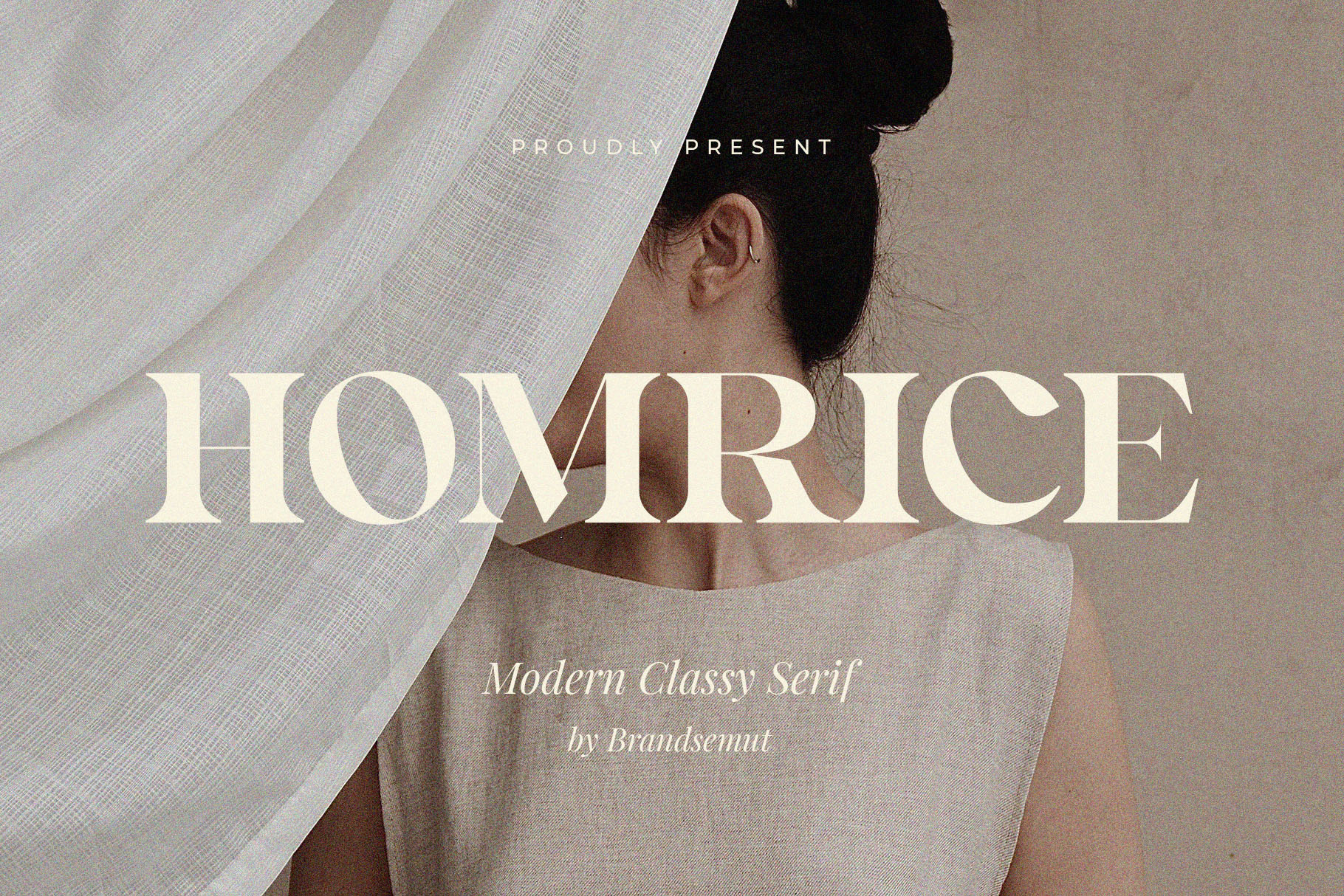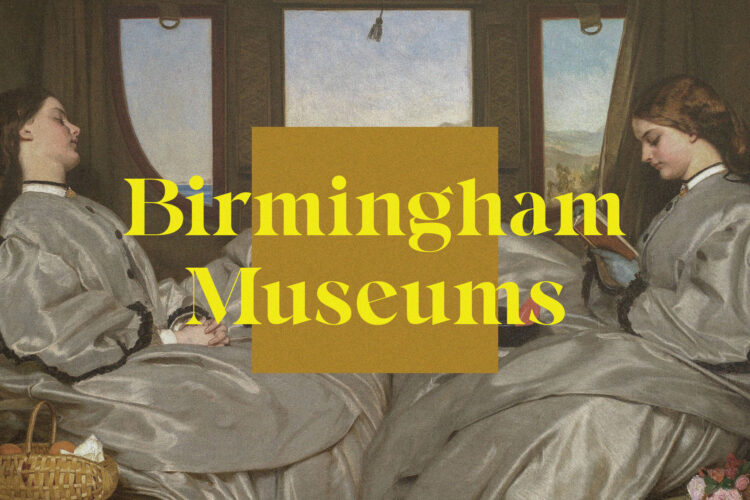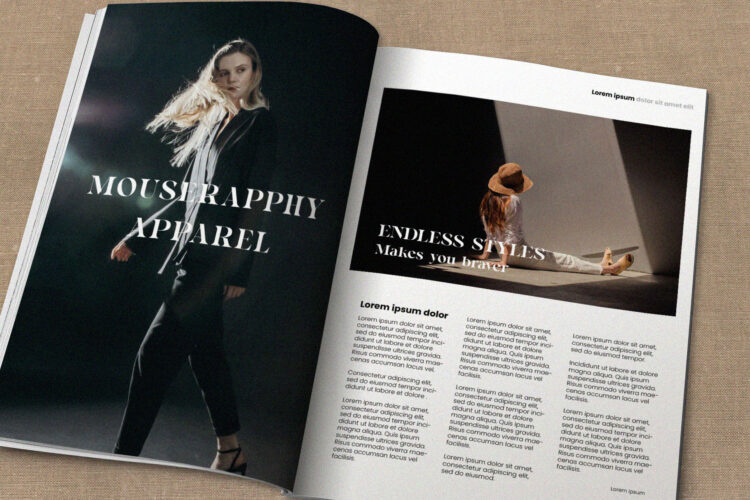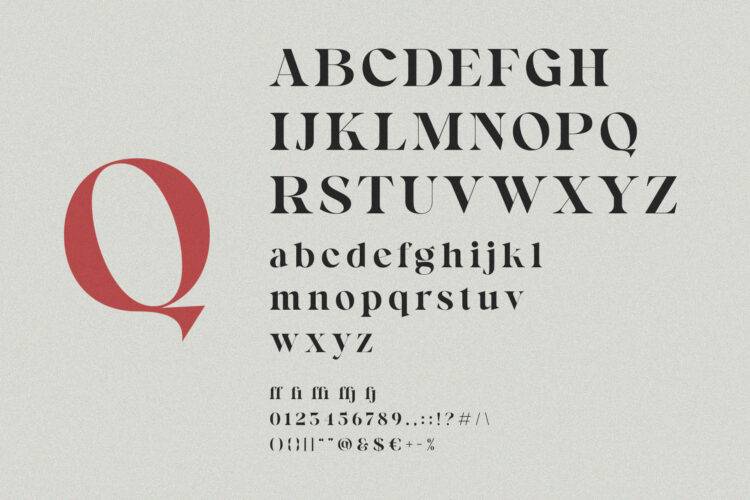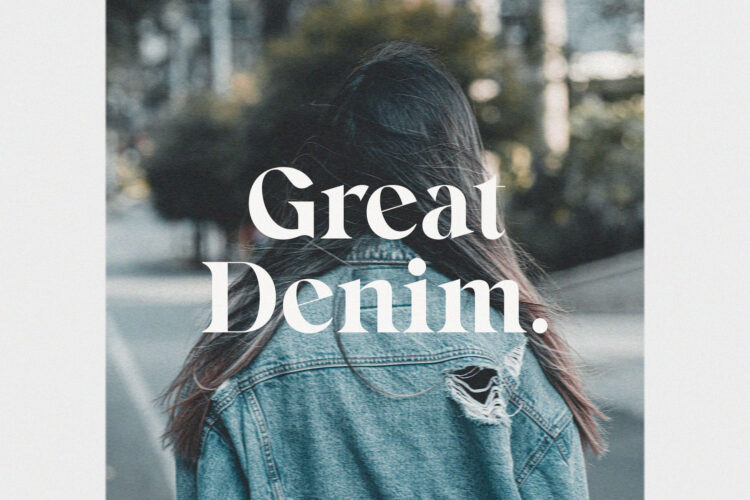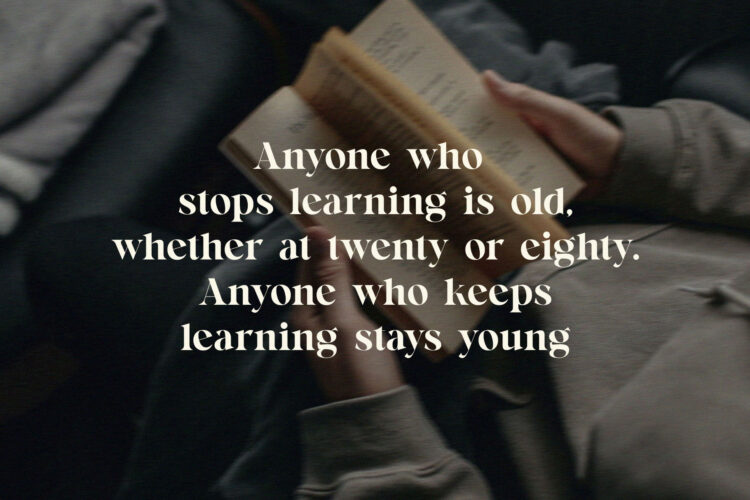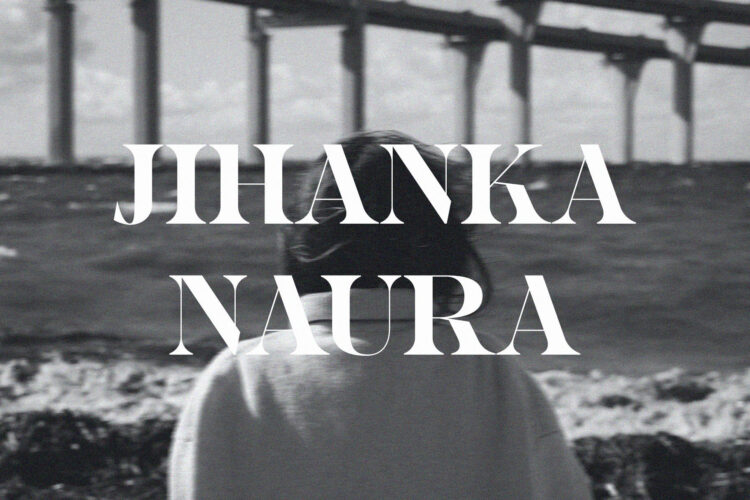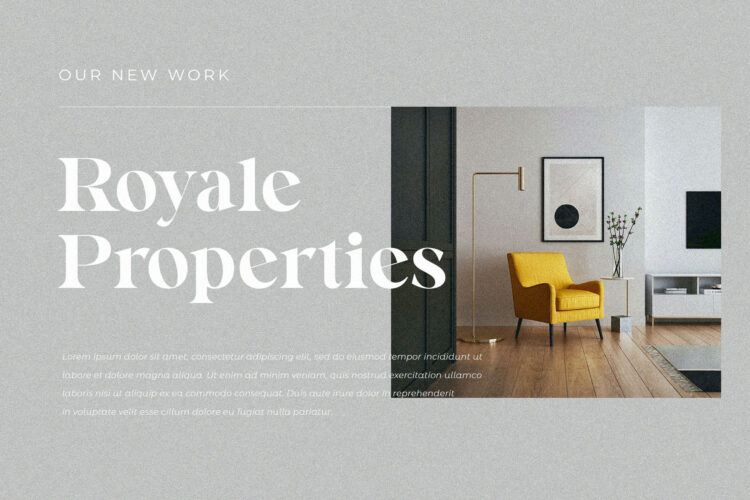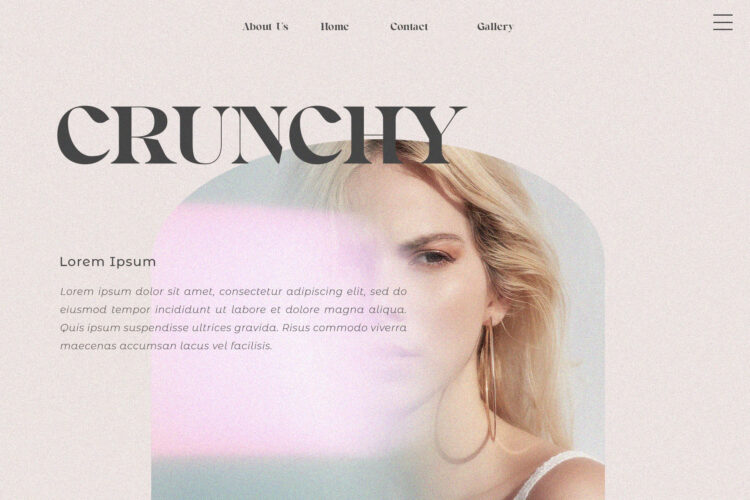
Introducing Homrice Modern Classy Serif.
Homrice is a modern and classy typeface, best used as a display for headings, logos, branding, magazines, product packaging and invitations. Homrice come with clean lines and smooth curves give any project an extra touch of class.